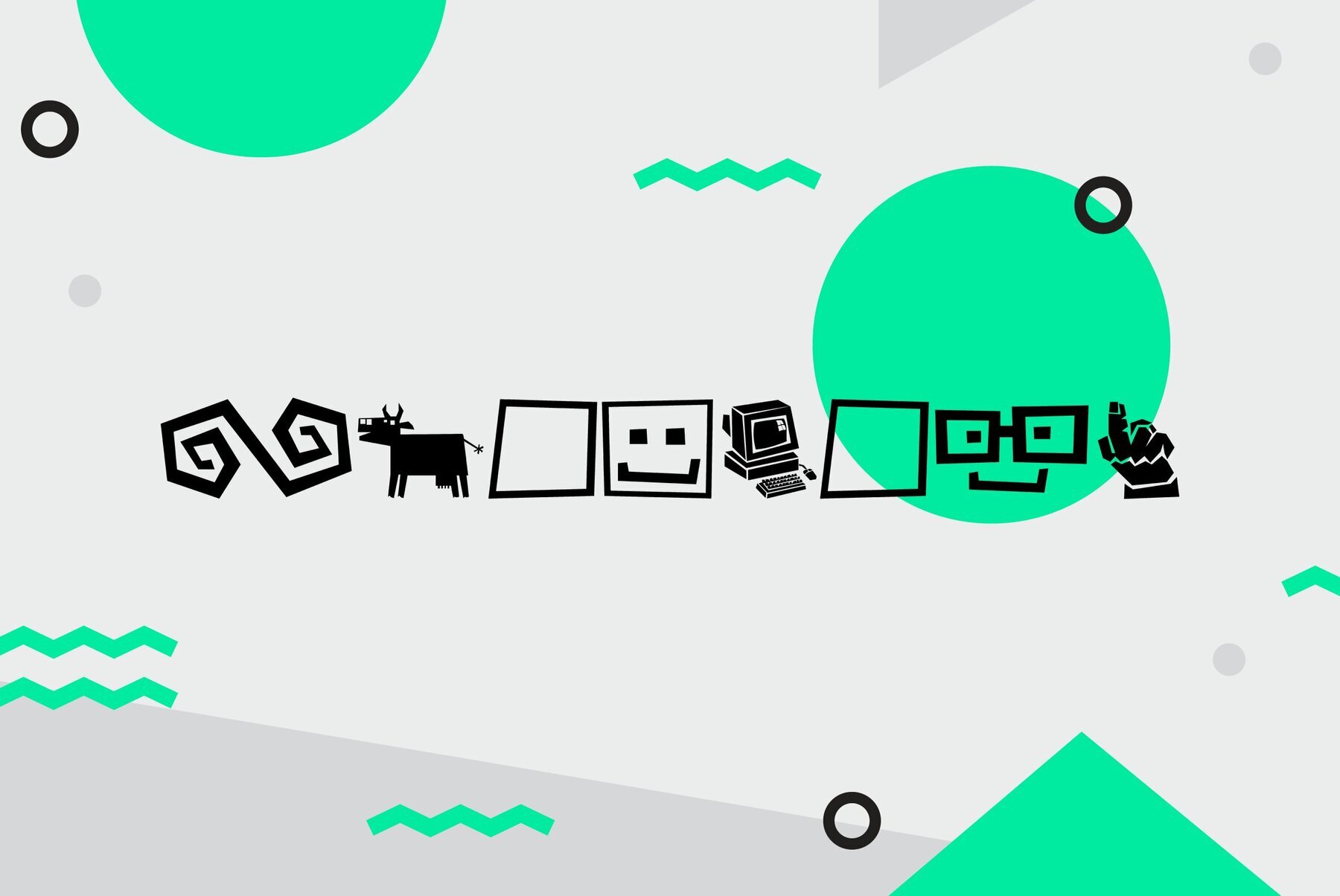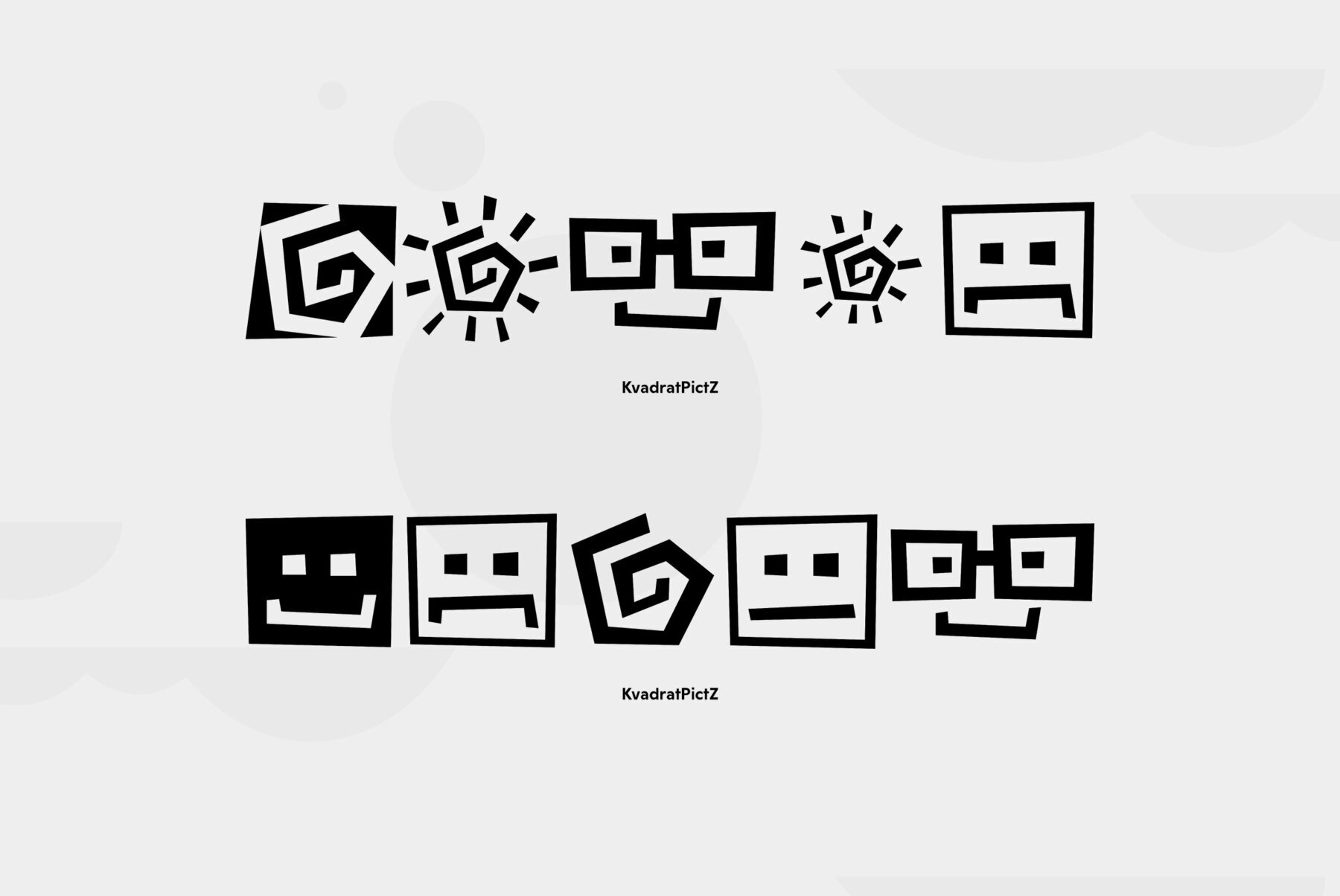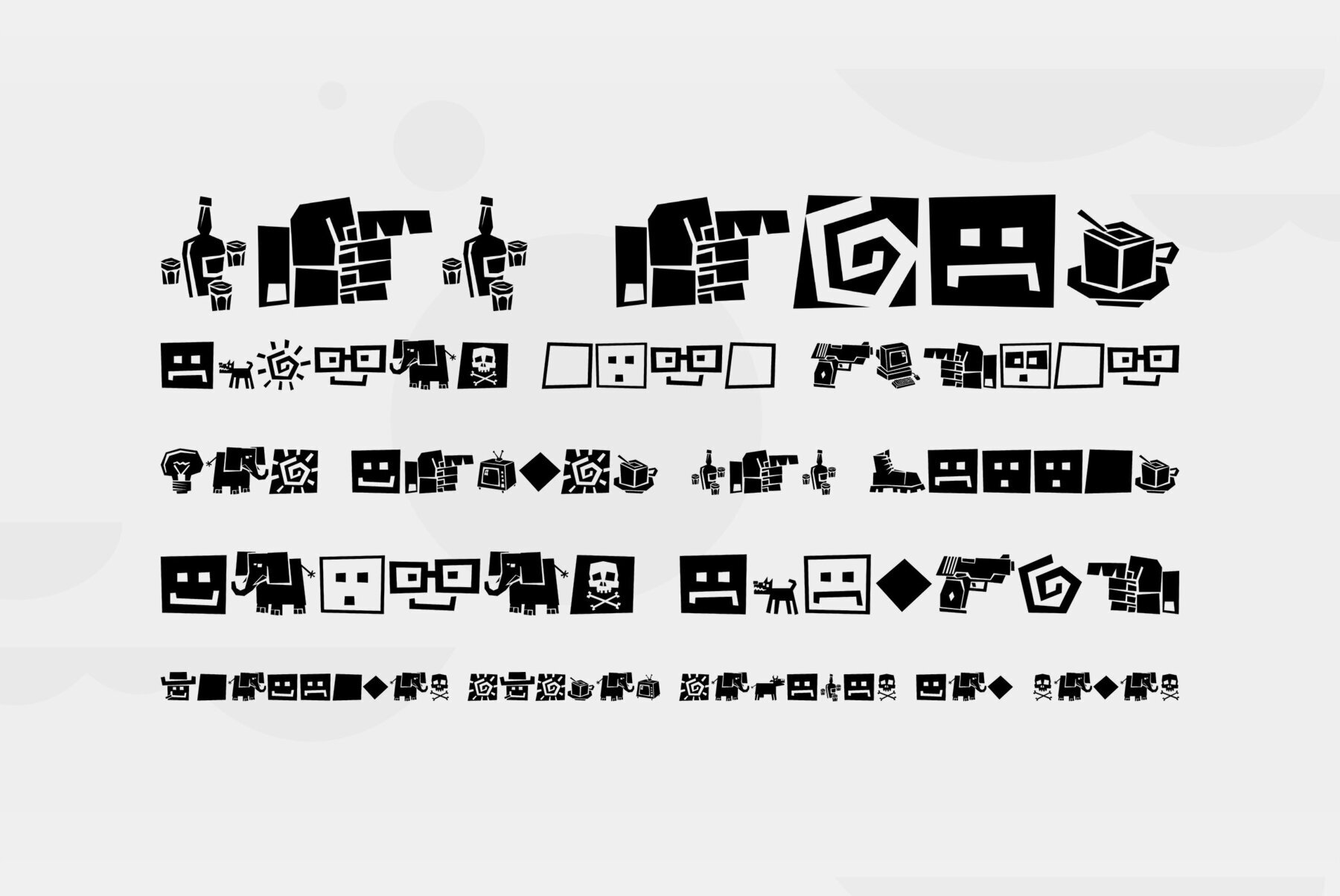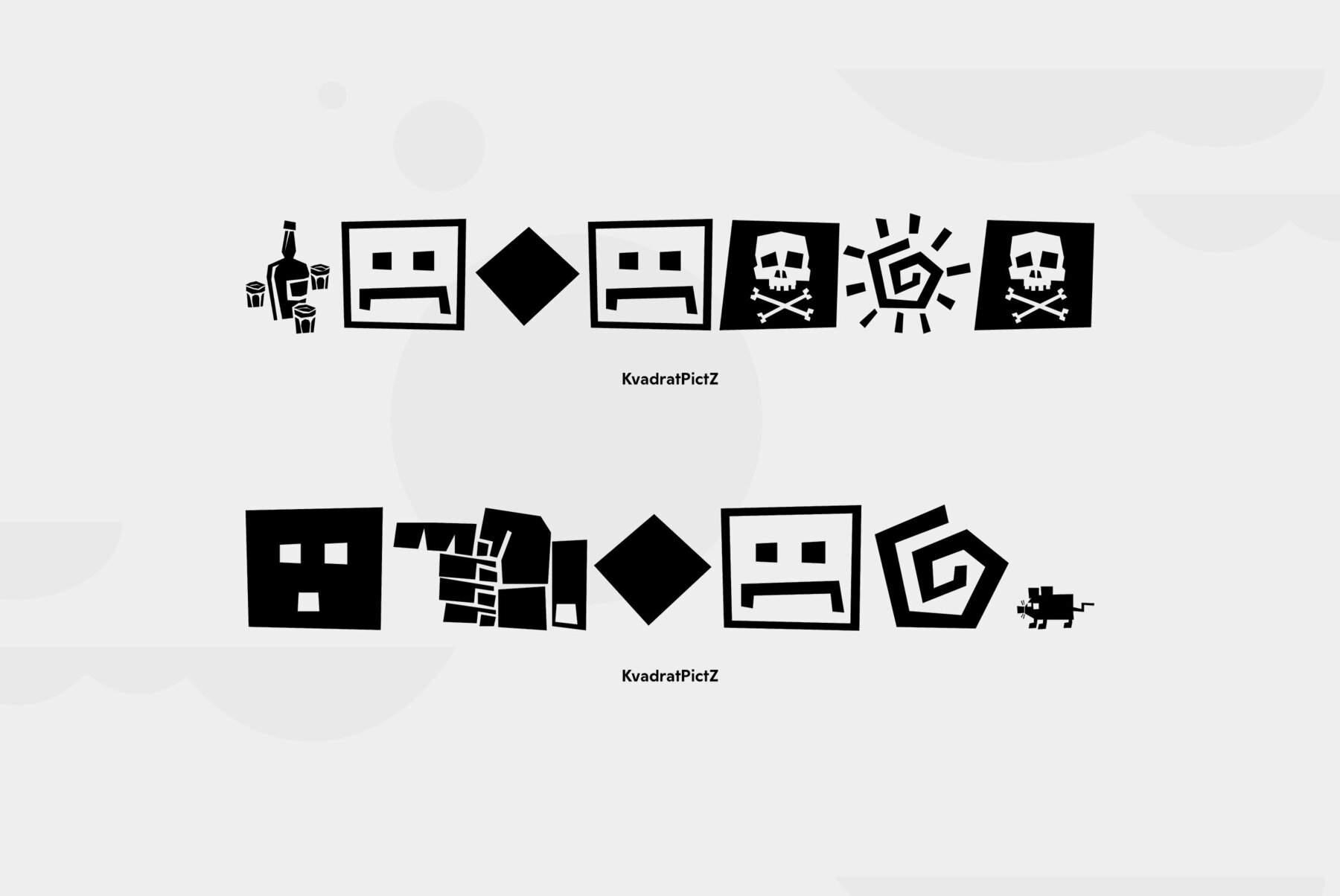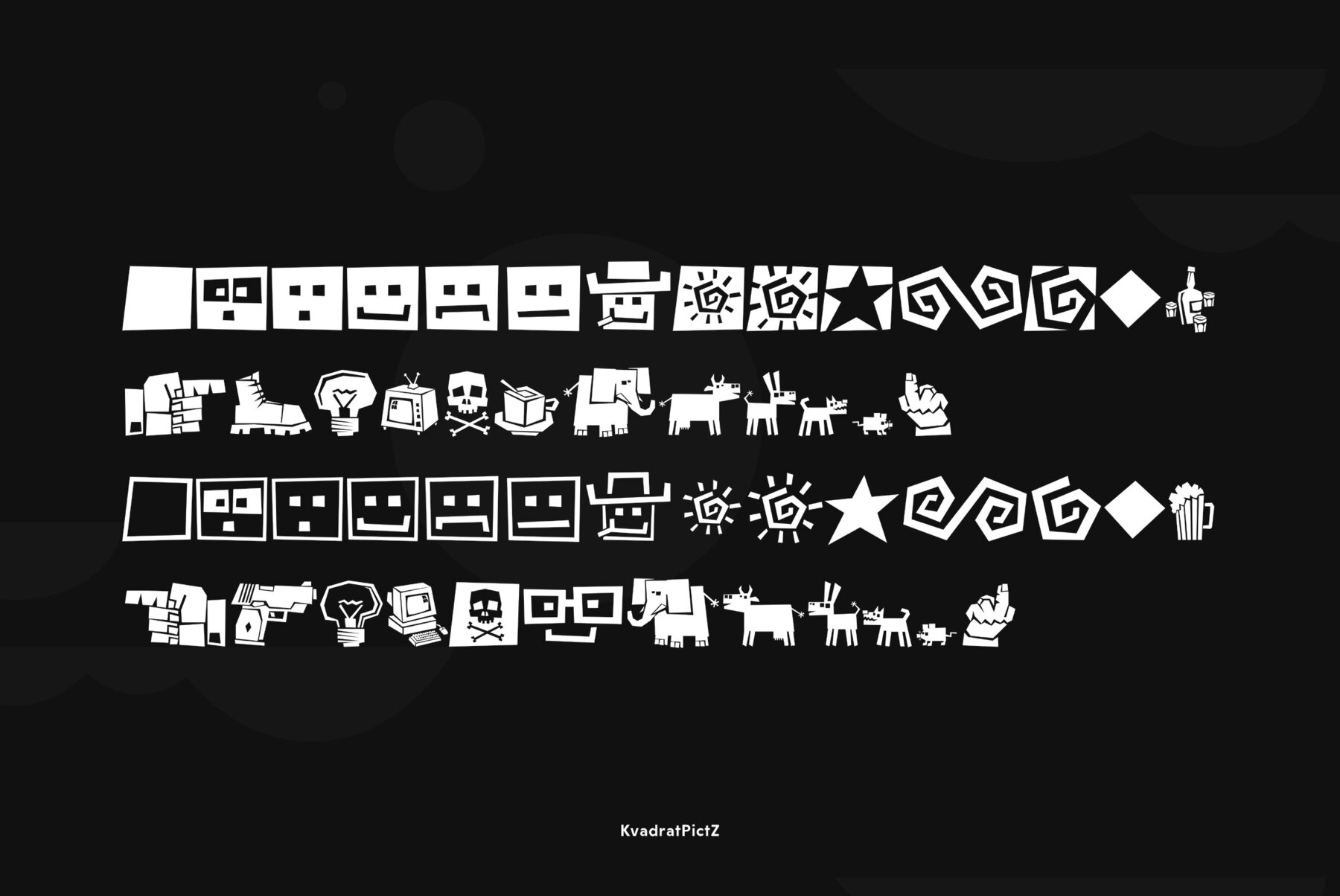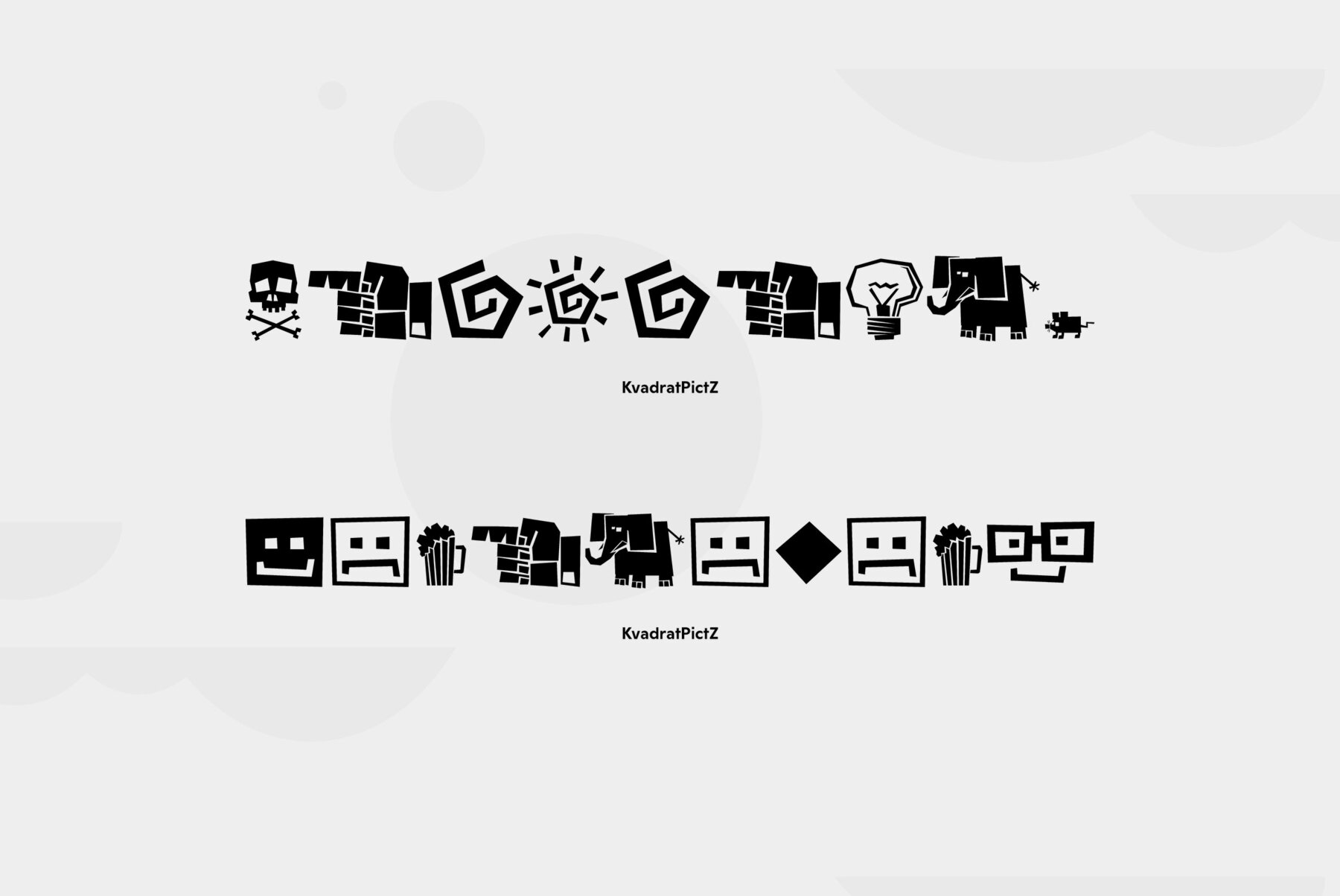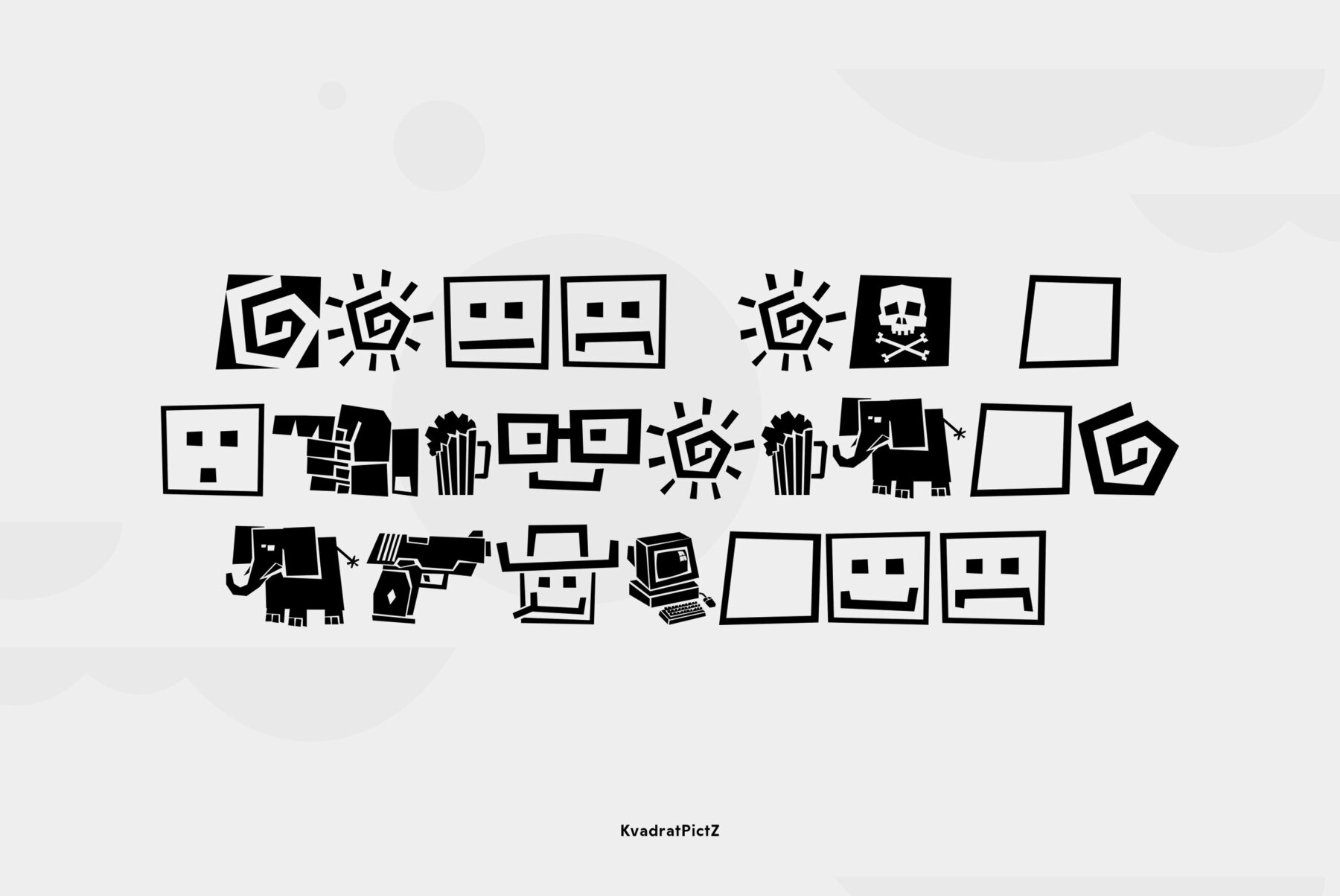
KvadratZ
An original type family designed for ParaType in 2001 by Zakhar Yaschin. The fonts were created within 'One Touch' project. The aim of the experiment was searching for a grapheme through primitive forms and intentional avoiding 'adjusted' characters. The family includes Wood style imitating woodcut letters, and a set of pictogrames. For use in advertising and display typography.